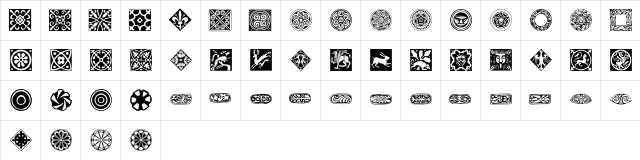
Emblem Regular
Design Context for Emblem Typeface
Emblem is a composed and adaptable typeface that performs quietly and consistently across a wide range of design contexts.